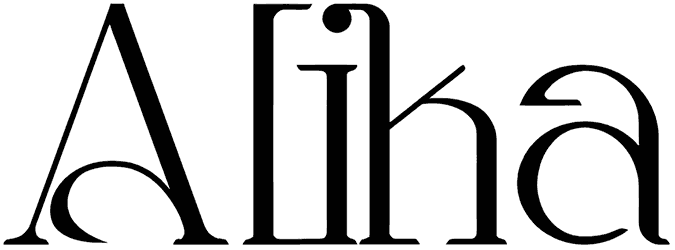
Alika Font
Alika is a marvelous serif font that really deserves to be on your radar for designing any kind of high-end creative ideas. Since it comes with two distinctive styles, it can easily widen your selection range and let you add a fresh breath to your projects.
Due to its good readability, this serif font can be included in book covers, product packaging, stickers, business cards, and branding projects. In addition, it carries a sense of formality, trustworthiness, confidence, and reliability.